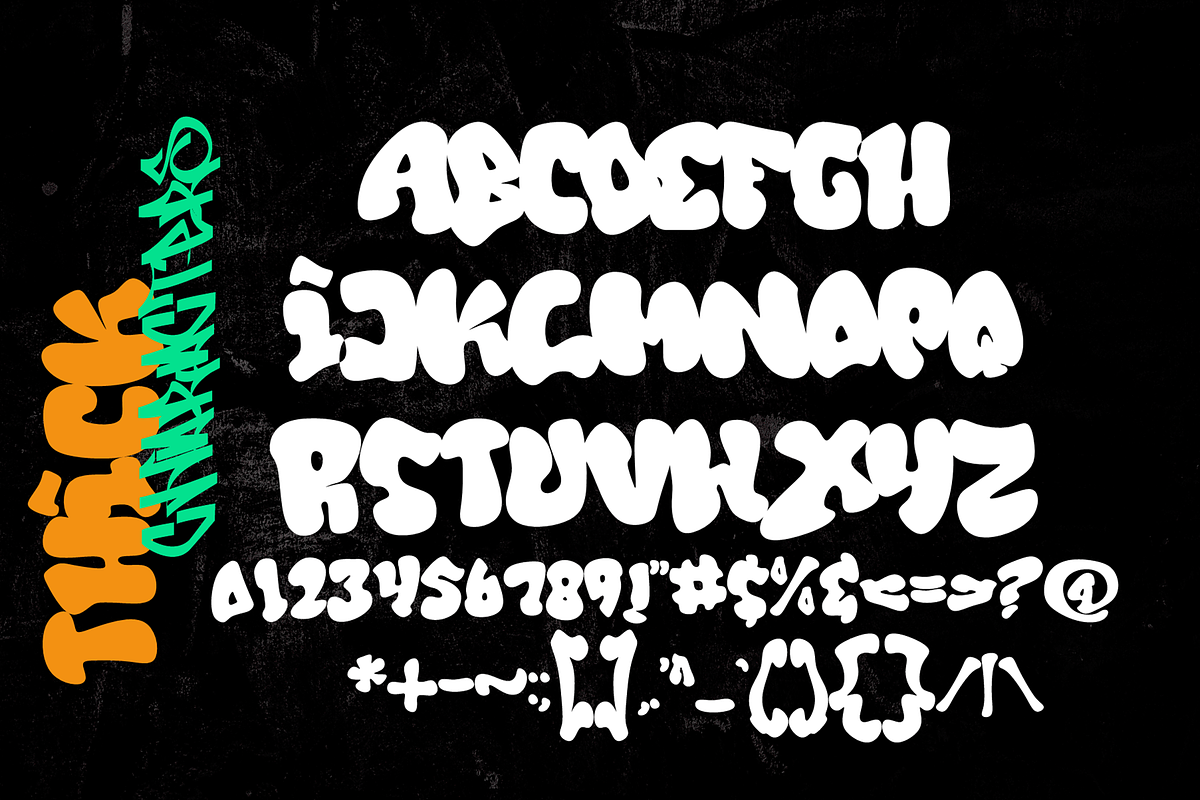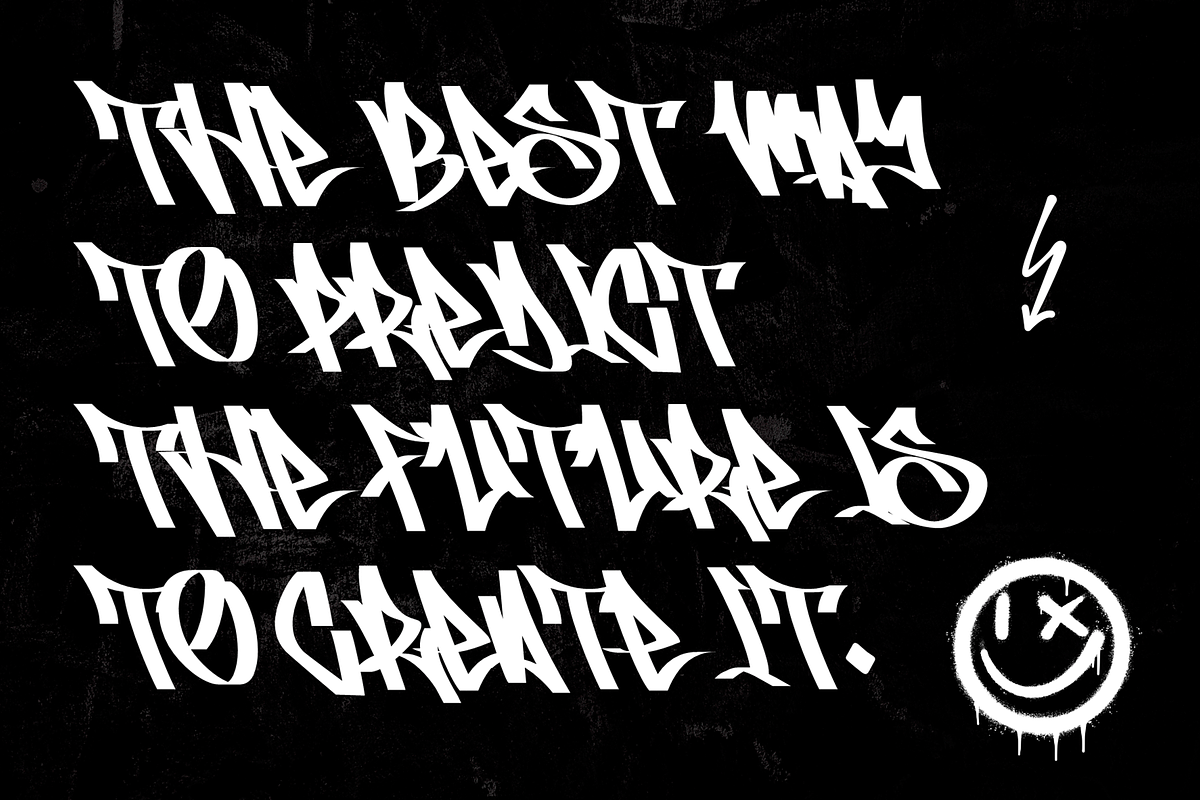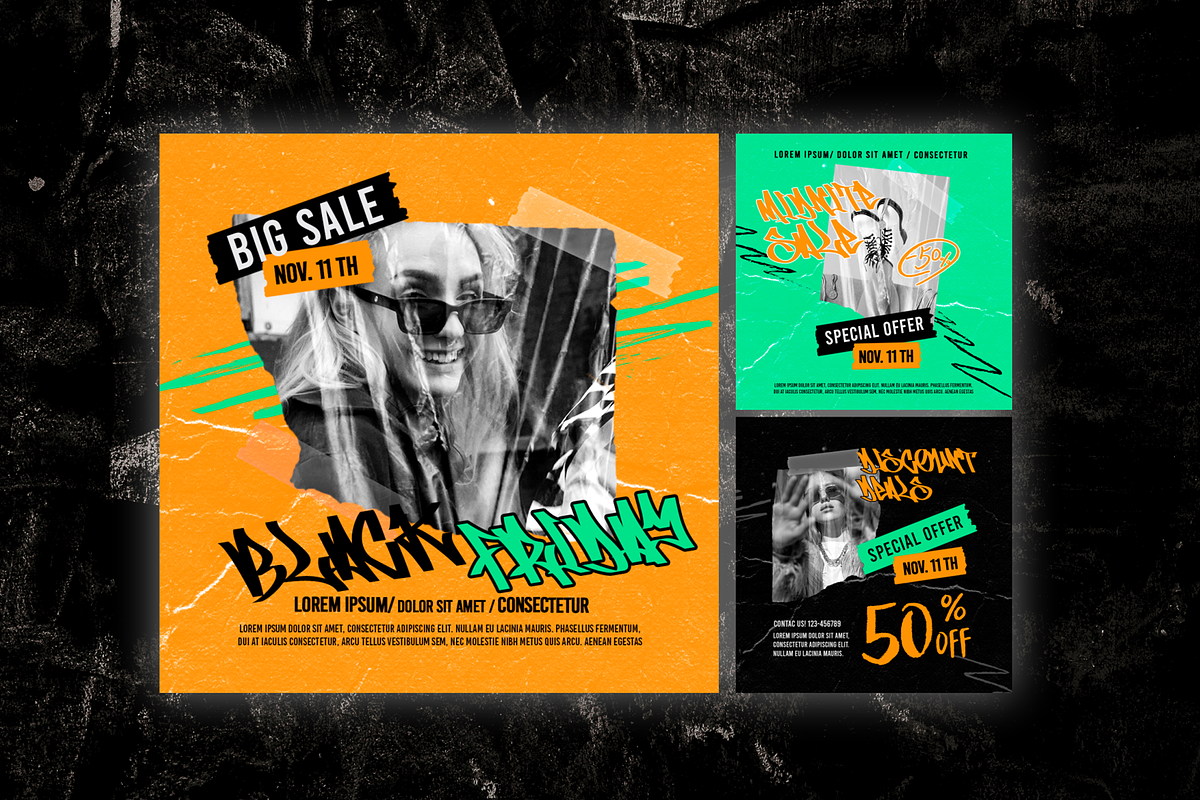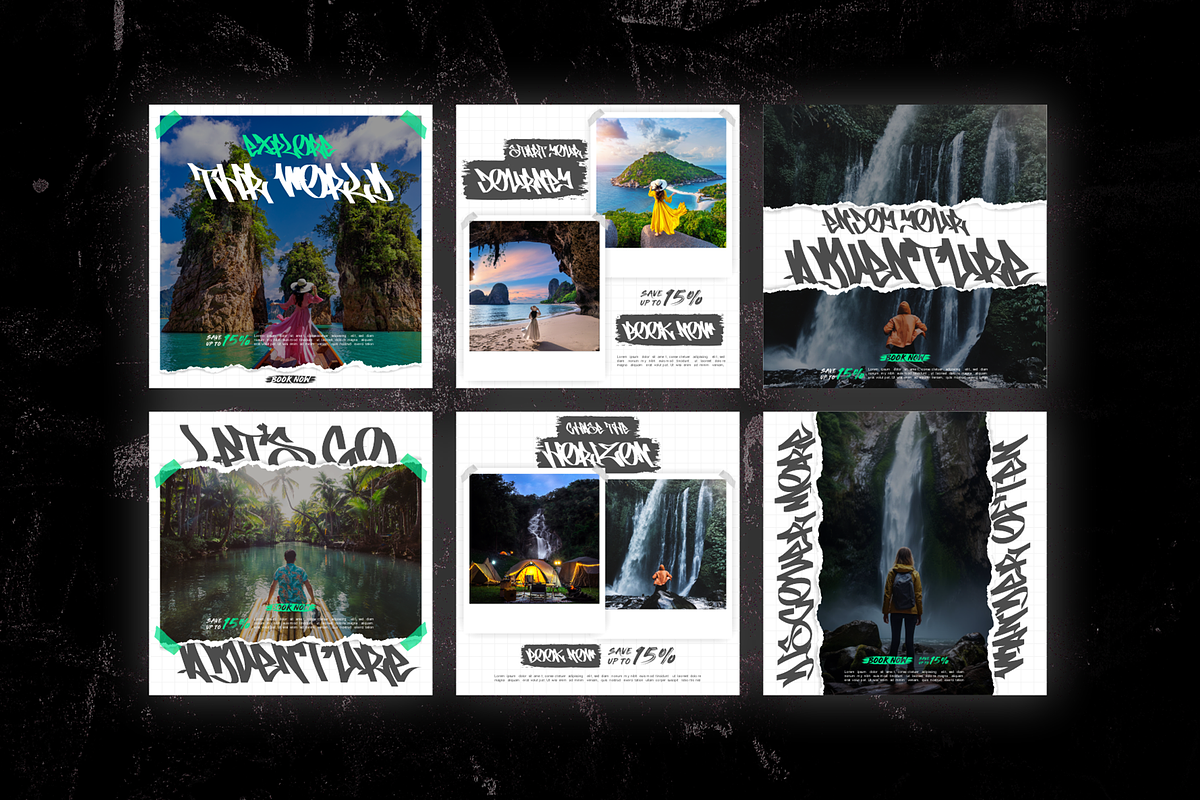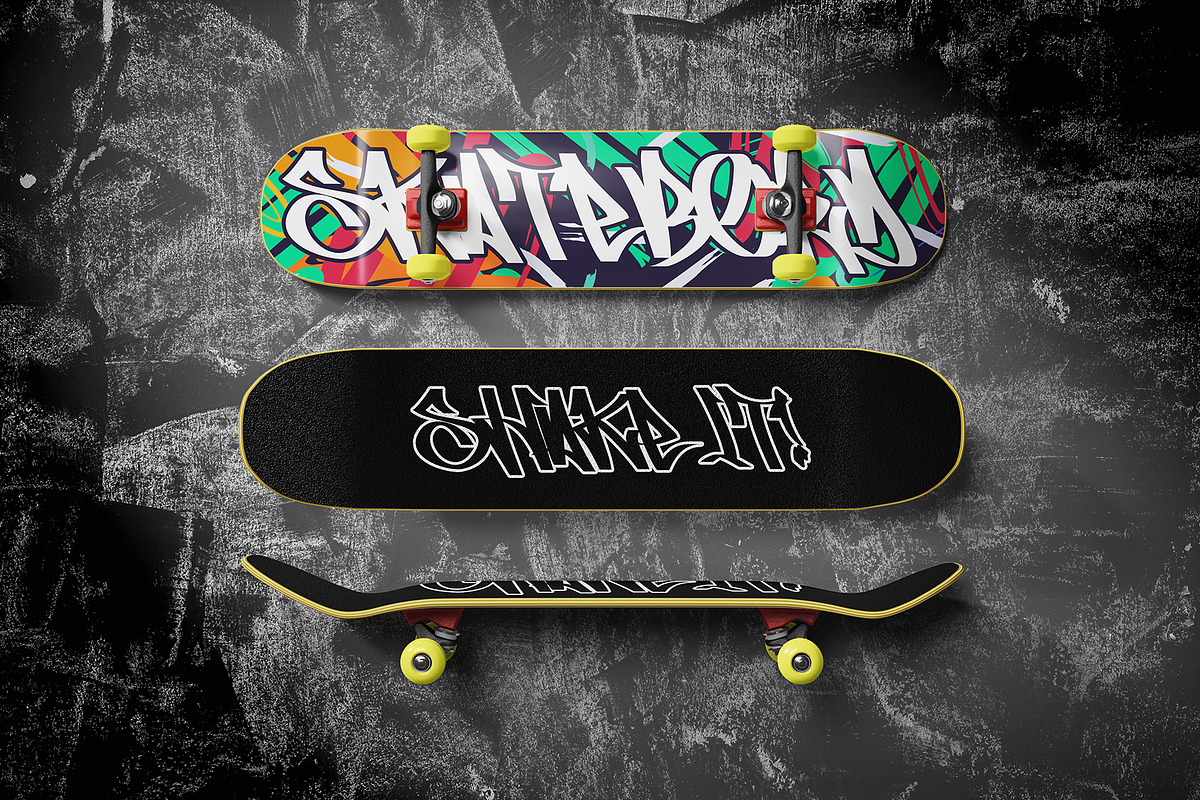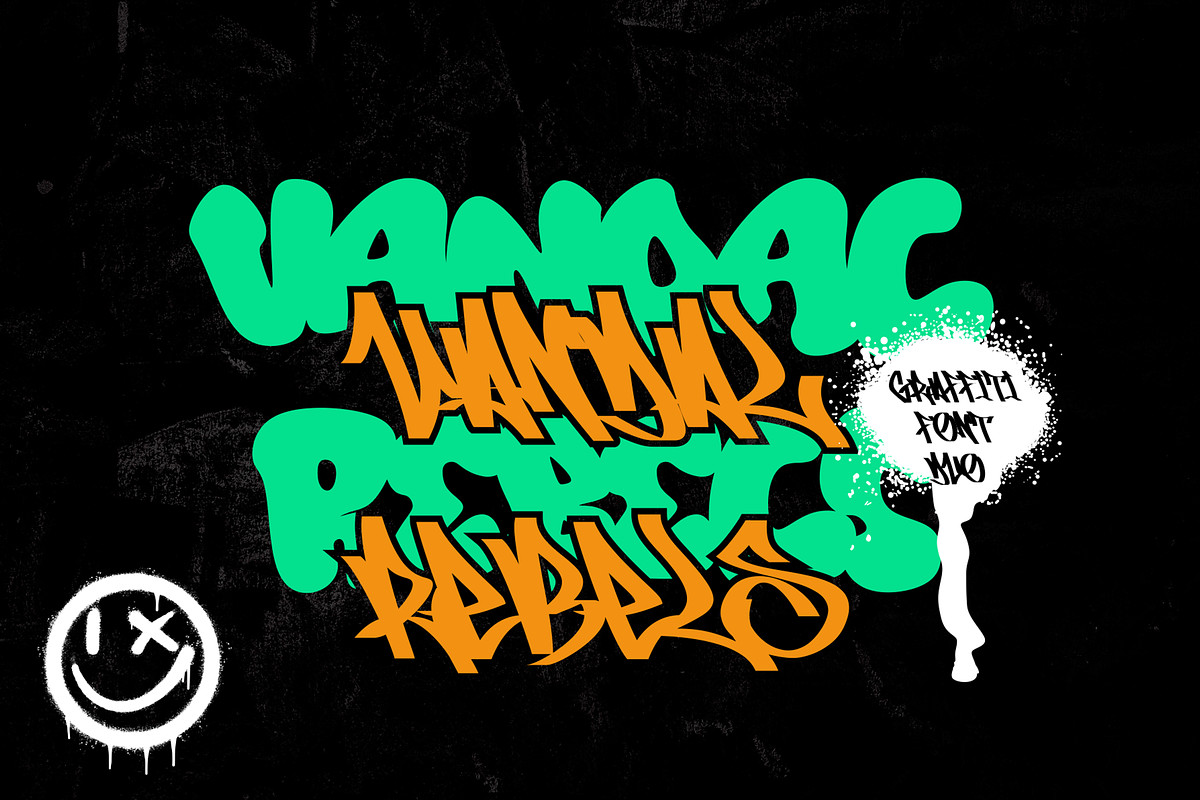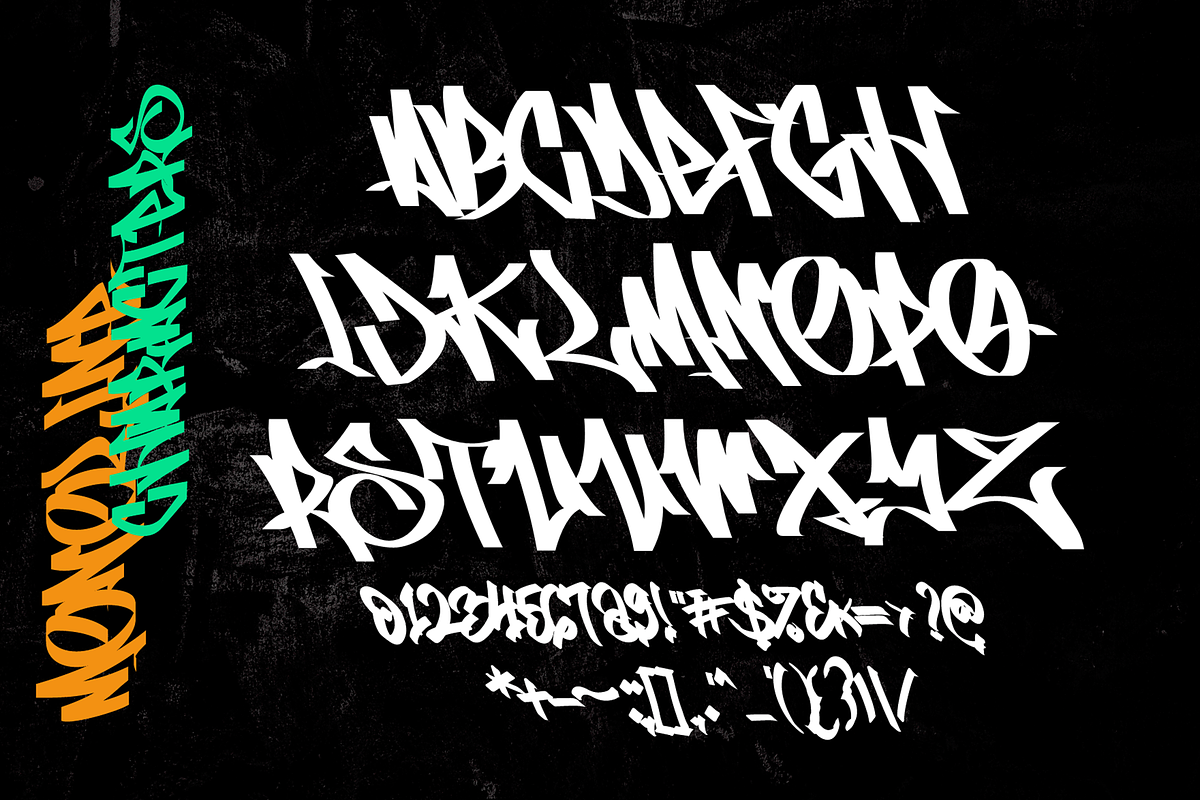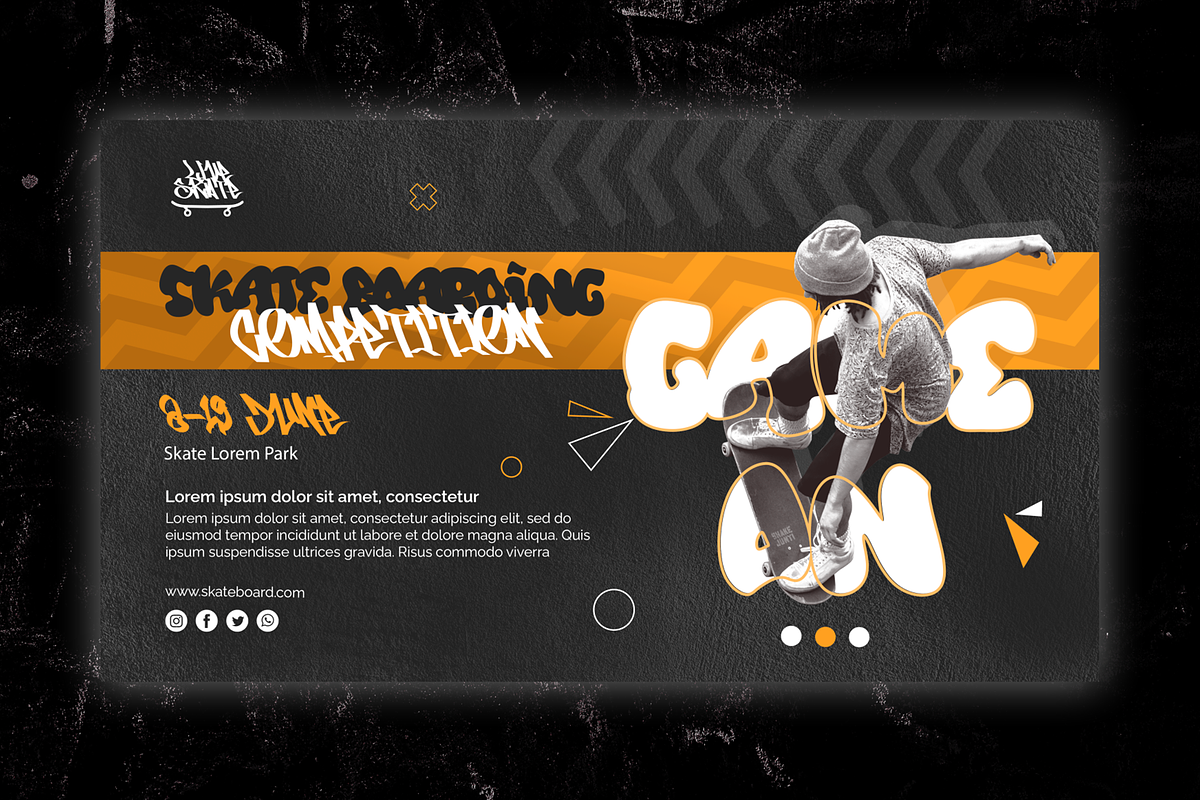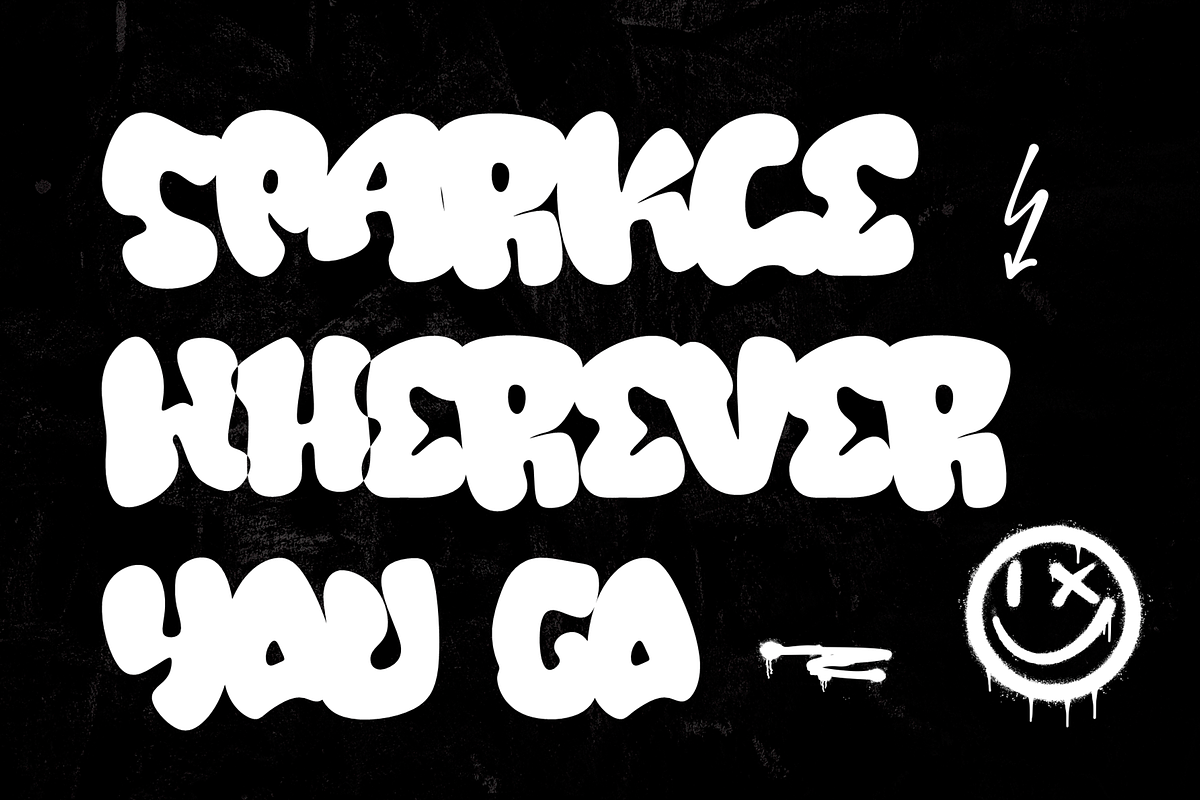
Vandal Rebels Duo
Vandal Rebels is a graffiti font duo featuring two distinct styles: monoline and thick graffiti. The monoline style is characterized by consistent line thickness throughout the characters, offering a sleek and modern appearance. In contrast, the thick graffiti style features bold and expressive letterforms with varying line widths, conveying a dynamic and edgy vibe.
This font duo provides versatility for different design needs. The monoline style exudes a contemporary and minimalist aesthetic, while the thick graffiti style adds a bold and urban touch. Whether you're working on sleek and modern projects or gritty and expressive designs, "Vandal Rebels" offers the flexibility to create diverse typographic compositions.